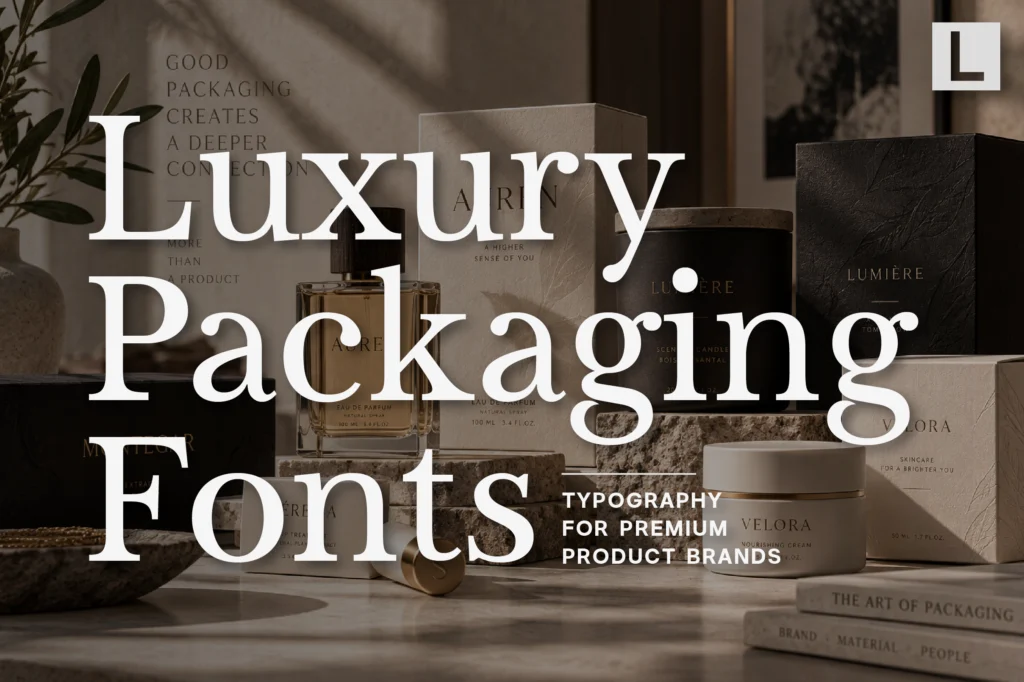
Best Fonts for Luxury Packaging: Typography for Premium Product Brands
Luxury Packaging Fonts - Typography for Premium Product Brands
Packaging is often the first physical experience someone has with a product.
Before a customer opens a perfume bottle, skincare jar, candle, cosmetic box, or premium product, they encounter the packaging itself.
Materials, colors, photography, finishes, and typography all contribute to that first impression.
Typography is particularly important because it communicates the personality of the product before the customer interacts with it.
A refined serif can make a package feel luxurious and established. A clean sans serif can create a contemporary identity. A softer typeface can make a lifestyle product feel more approachable.
The right luxury packaging font should therefore do more than look beautiful.
It should communicate what kind of product is inside.
Why Typography Matters in Luxury Packaging
Premium packaging has very little space to communicate a lot.
A box, bottle, tube, or label may only have a few words available:
• Brand name
• Product name
• Collection
• Ingredients
• Volume
• Supporting information
Every typographic decision becomes more visible.
A carefully selected typeface can communicate:
• Luxury
• Craftsmanship
• Exclusivity
• Modernity
• Sophistication
• Authenticity
This is why typography is often one of the most important elements in premium packaging design.
What Makes a Good Luxury Packaging Font?
Packaging typography needs to work at multiple scales.
The brand name may be displayed prominently across the front of a box, while supporting information needs to remain readable at a much smaller size.
A strong packaging typeface should offer:
• Distinctive character
• Clear letterforms
• Strong hierarchy
• Good spacing
• Multiple weights or styles
• Excellent print performance
The best choice also needs to complement the physical characteristics of the packaging.
A delicate serif may work beautifully with embossed paper, while a bold sans serif might be better suited to contemporary glass or metallic packaging.
Serif Fonts Create a Premium Impression
Serif typography remains one of the most effective directions for luxury packaging.
Its connection with editorial design, fashion, beauty, publishing, and heritage brands makes it naturally suited to premium products.
Recommended for Refined Product Packaging
Serelia brings an elegant serif character that works particularly well for fragrance, beauty, skincare, candle, and lifestyle packaging.
Its refined proportions can create a sophisticated product identity without requiring excessive decorative elements.
For brands using minimal packaging, a strong serif can become the primary visual feature.
Editorial Typography for Luxury Packaging
Luxury packaging often borrows visual language from fashion editorials and premium magazines.
Large product names, generous whitespace, restrained layouts, and carefully controlled typography can create a sense of exclusivity.
Recommended for Editorial Luxury Brands
Montegar offers a more expressive editorial direction for premium packaging.
Its character makes it suitable for perfume collections, fashion accessories, boutique beauty products, luxury candles, and limited-edition packaging where the typography needs to become part of the product’s visual personality.
Used with generous spacing and minimal supporting graphics, it can create a sophisticated editorial feel.
Sans Serif Fonts for Contemporary Packaging
Luxury does not always mean traditional.
Many contemporary product brands use clean sans serif typography to create a more modern interpretation of premium design.
This approach is especially effective for:
• Skincare
• Wellness products
• Modern cosmetics
• Interior products
• Premium food packaging
• Technology-led products
Recommended for Modern Packaging Systems
Horiva Sans provides a clean geometric direction for brands that want their packaging to feel contemporary and structured.
Its modern character can work across product labels, cartons, websites, social media, and broader brand systems.
This makes it useful when packaging needs to remain consistent with a digital-first identity.
Featured Fonts from Lettertype Studio
• Serelia — Refined serif for elegant beauty, fragrance, and lifestyle packaging.
• Montegar — Editorial luxury character for premium product collections and campaigns.
• Horiva Sans — Contemporary geometric sans for modern packaging systems.
• Gravex Massive — Bold display typography for statement packaging and limited editions.
• Lenia Soft — Softer premium direction for skincare, wellness, and lifestyle products.